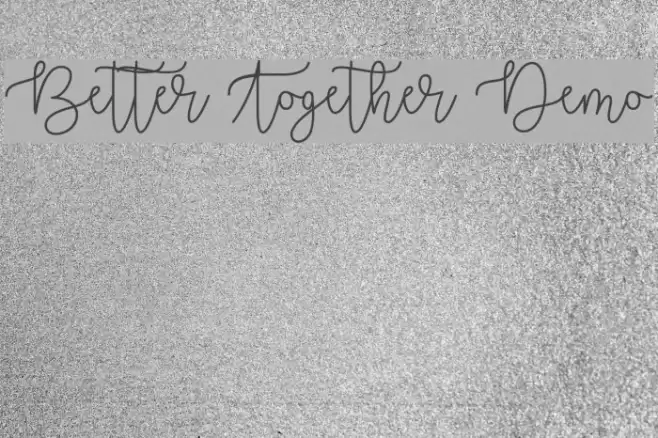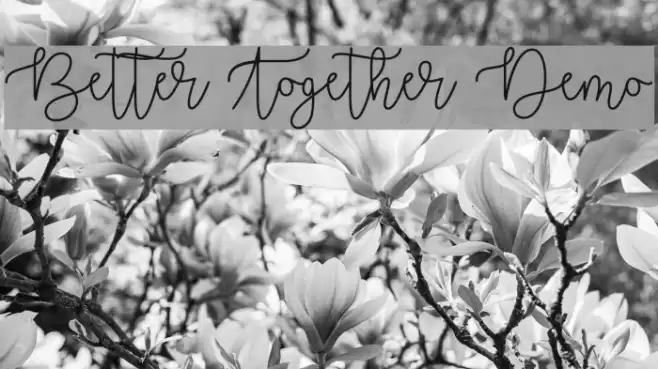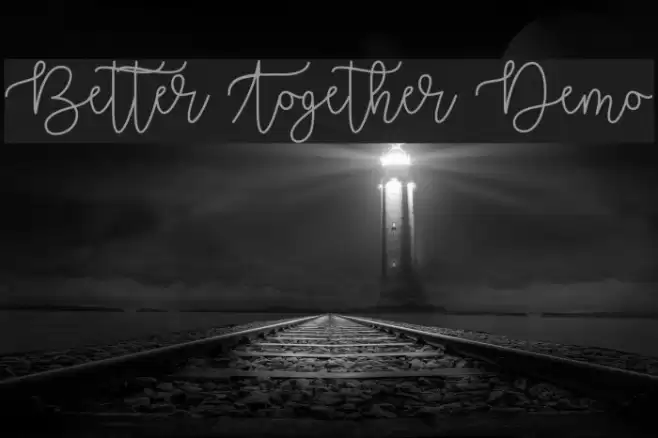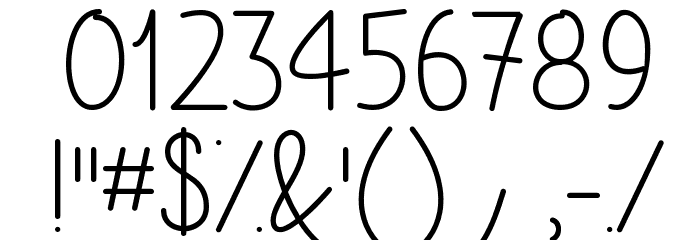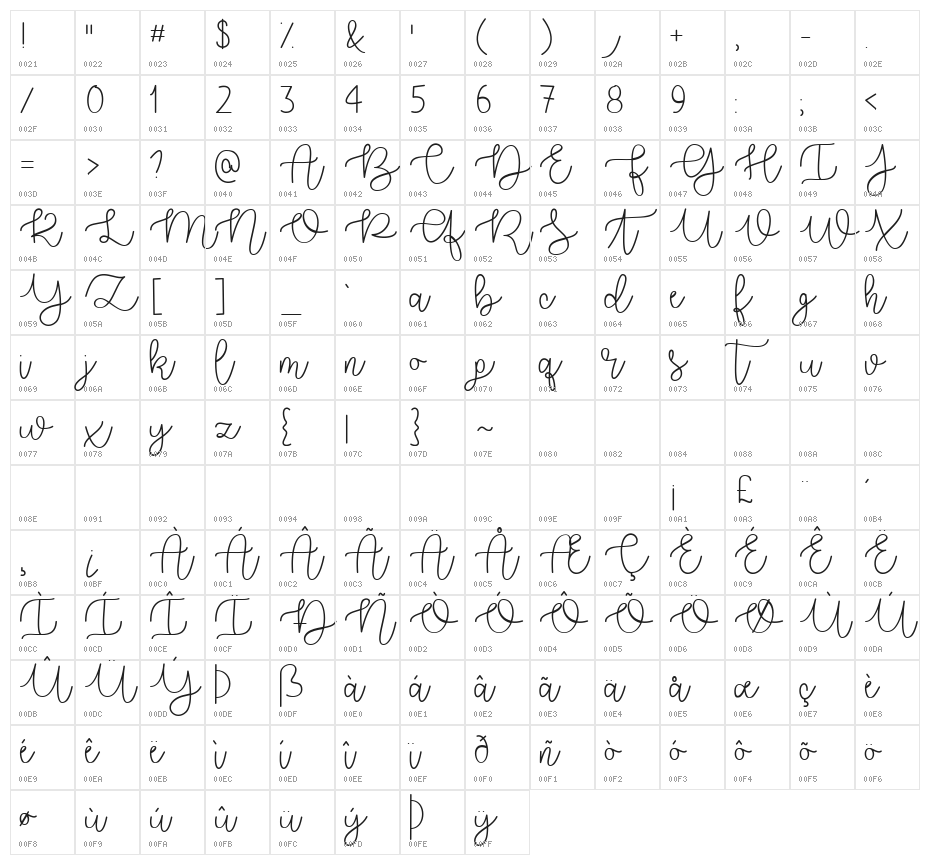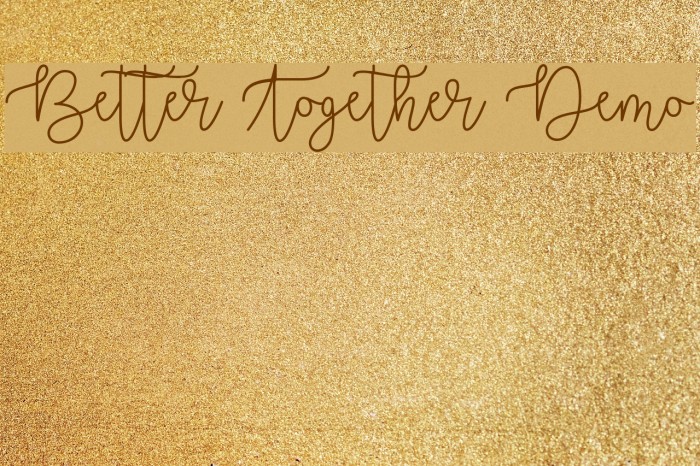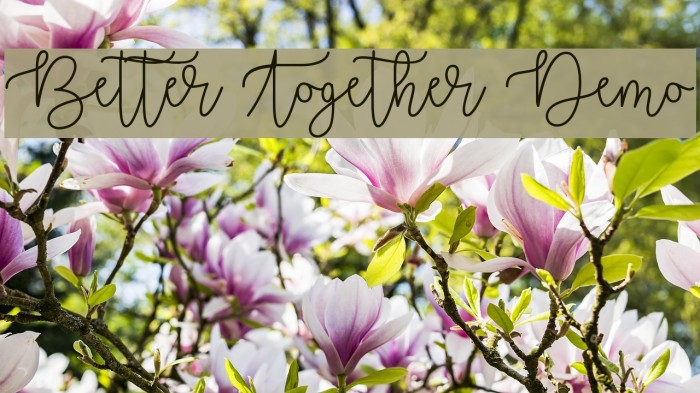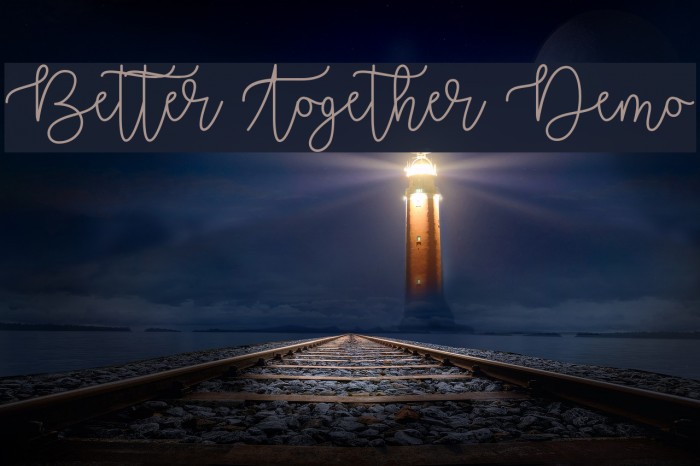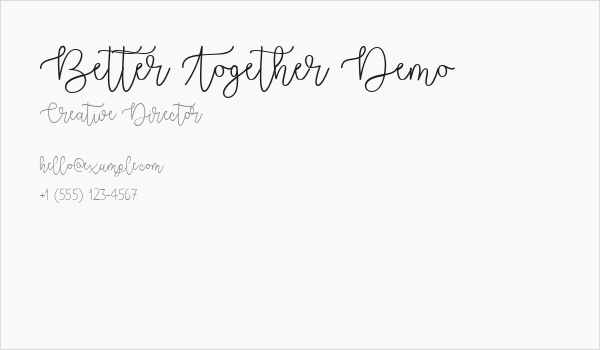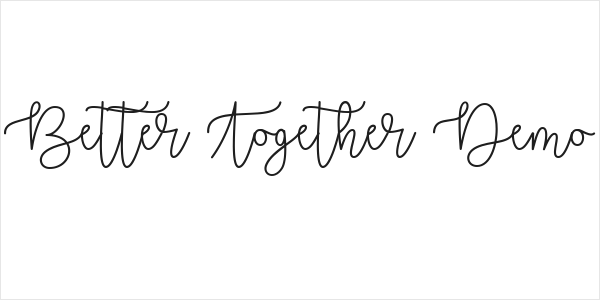
Better Together Demo Font
Better Together Demo Description
This font features a playful and flowing script style, characterized by its smooth, continuous strokes that mimic the fluidity of handwriting. The uppercase letters are elegantly looped, while the lowercase letters maintain a consistent, connected form, enhancing the cursive aesthetic. The numerals are clear and maintain the script's whimsical nature, making them easily legible. Special characters are integrated seamlessly, preserving the overall cohesive look. This font exudes a friendly and approachable vibe, ideal for projects that require a personal touch.
A playful, flowing script font with smooth, continuous strokes from Handwritten fonts.
- Proposed Projects: Ideal for wedding invitations, greeting cards, personal branding, and creative projects that require a handwritten touch.
- Use Case: Logos, Headlines, Invitations